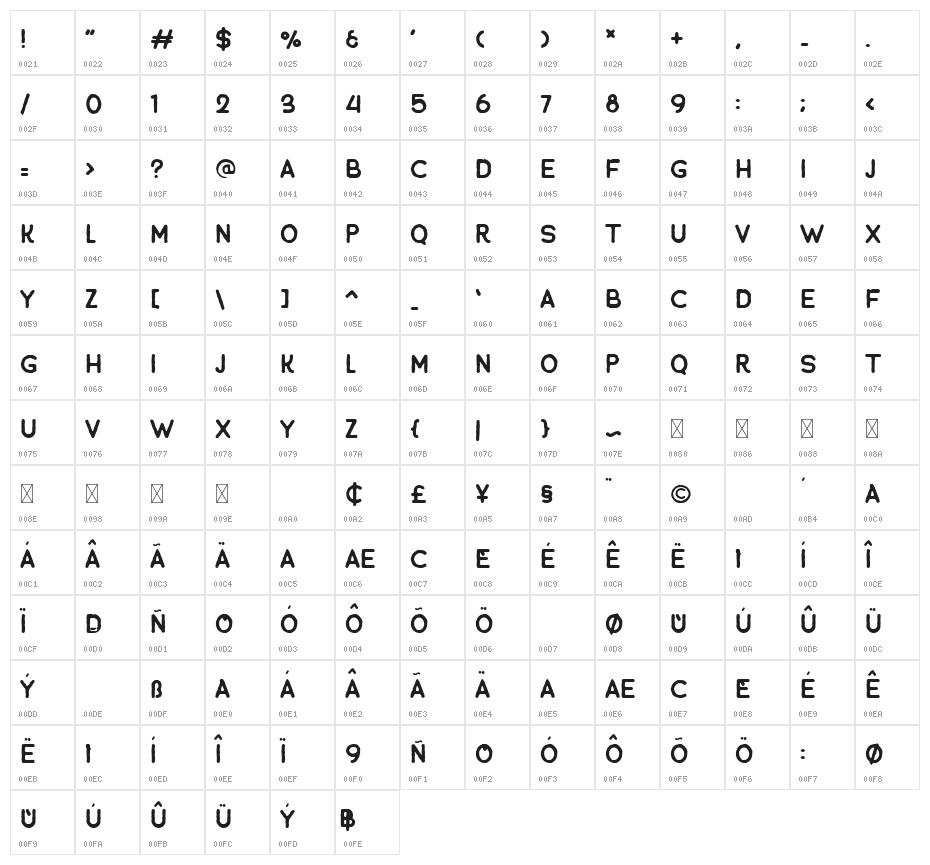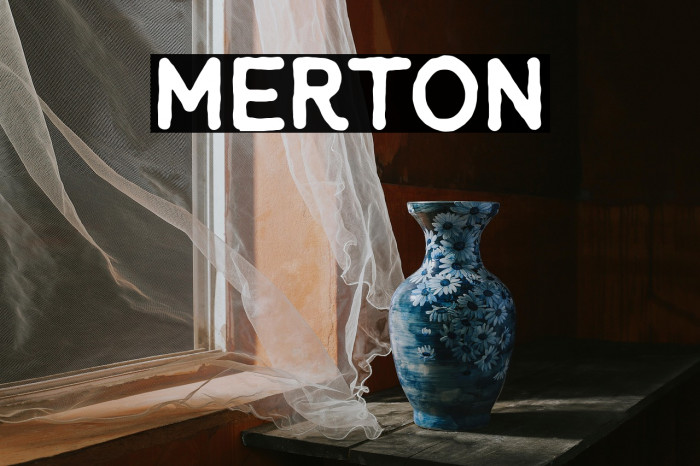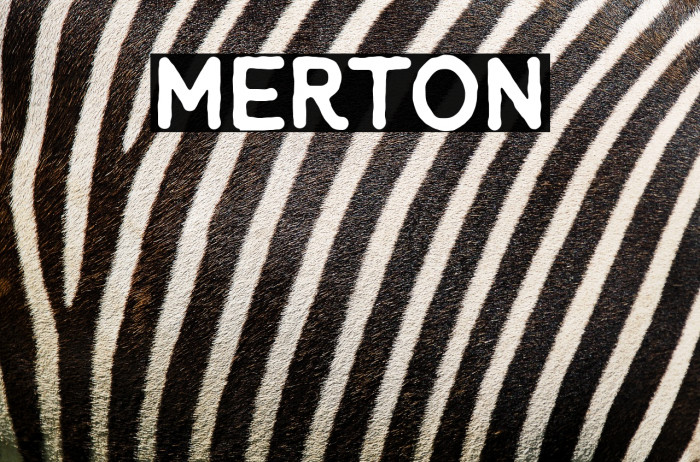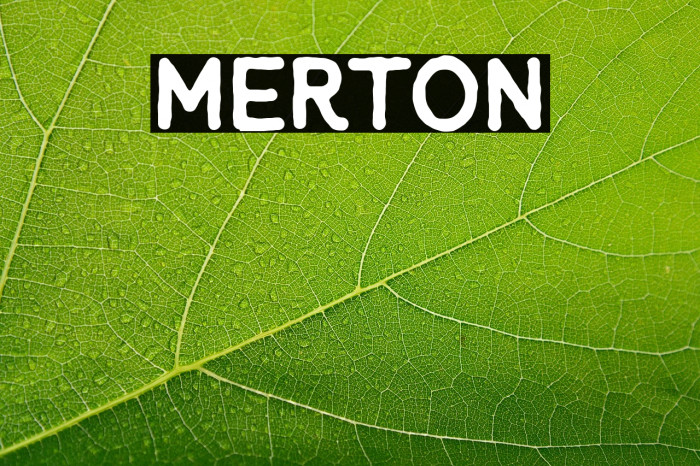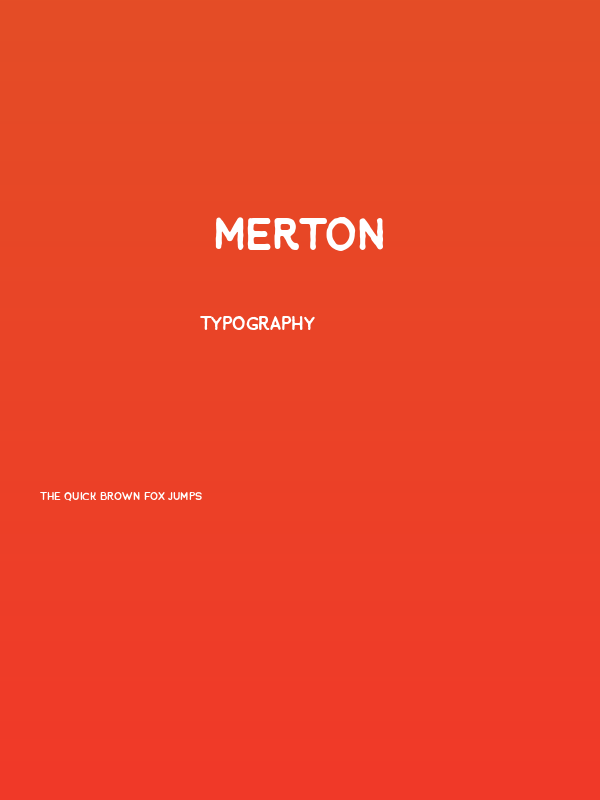
Merton Font
Merton Description
This font features a bold and playful design with rounded edges and a slightly irregular form, giving it a hand-drawn appearance. The characters are thick and robust, making them highly legible and impactful. The uppercase and lowercase letters maintain a consistent style, while the numerals and special characters complement the overall aesthetic. The font's unique style is both approachable and dynamic, making it suitable for a variety of creative applications. Its boldness ensures that it stands out, while the rounded forms add a touch of friendliness and warmth.
| Overall Style | Playful, Hand-drawn |
| Proposed Projects | Ideal for children's books, playful branding, posters, and creative projects that require a friendly and approachable typeface. |